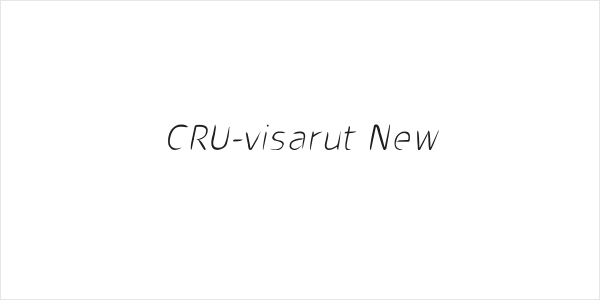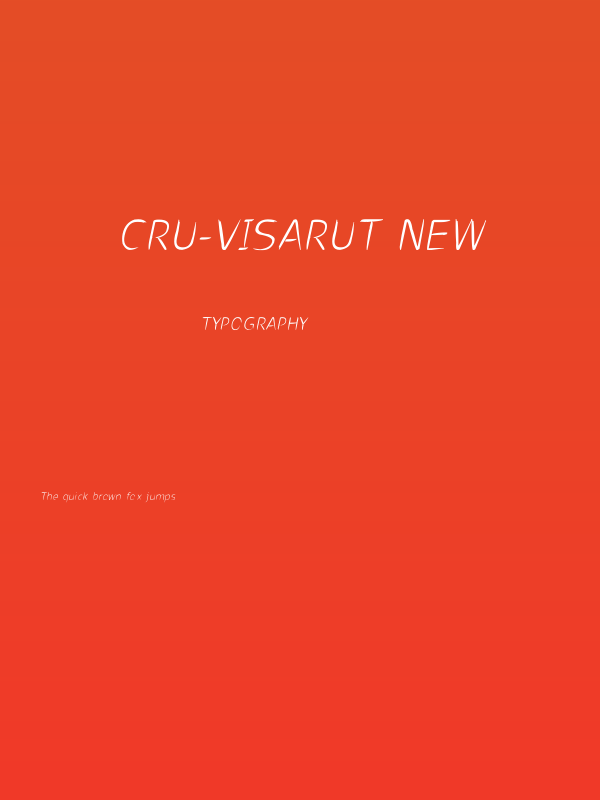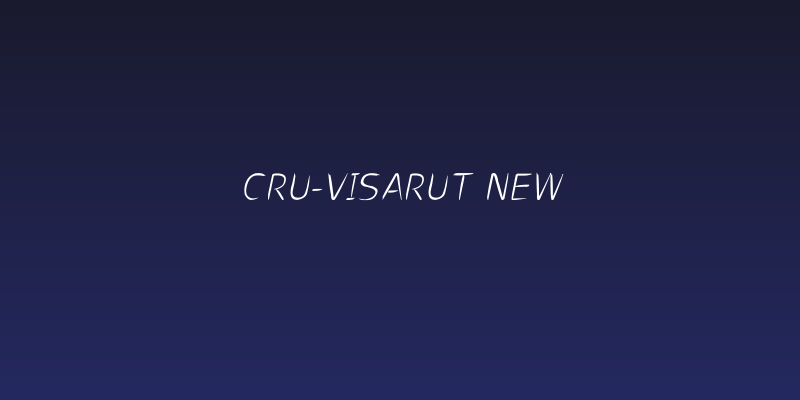
CRU-visarut New Font
CRU-visarut New Description
This font features a dynamic and slightly italicized style, characterized by its slanted and fluid letterforms. The strokes are smooth and consistent, giving it a modern and energetic appearance. The uppercase letters are bold and assertive, while the lowercase letters maintain a cohesive flow, enhancing readability. The numerals are clear and distinct, matching the overall style of the alphabet. Special characters are well-integrated, maintaining the font's sleek and contemporary design. This font is versatile, suitable for various design projects that require a touch of elegance and modernity.
Use CaseHeadlines, Logos, Editorial design
Proposed ProjectsIdeal for branding, advertising, and editorial design projects.